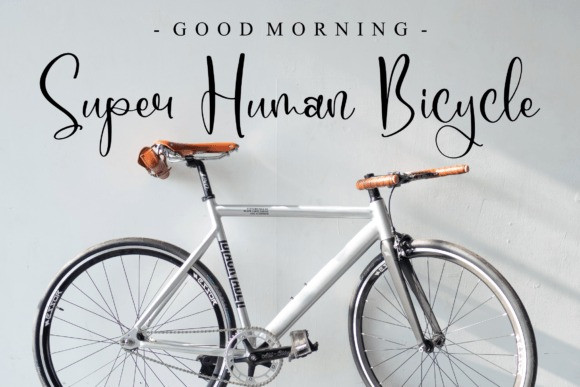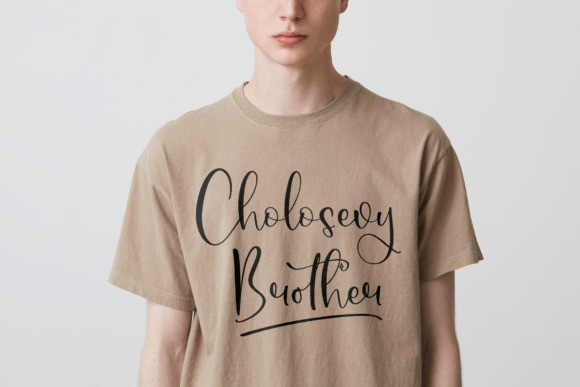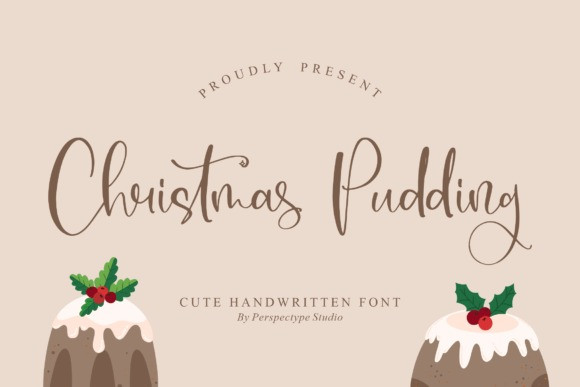
Christmas Pudding Font
Christmas Pudding – Cute Handwritten Font suitable for any projects such as logos, branding projects, homeware designs, product packaging, mugs, quotes, posters, shopping bags, t-shirts, book covers, name cards, invitation cards, greeting cards, labels, photography, watermark, special events, and all your other lovely projects that need a beautiful script taste.